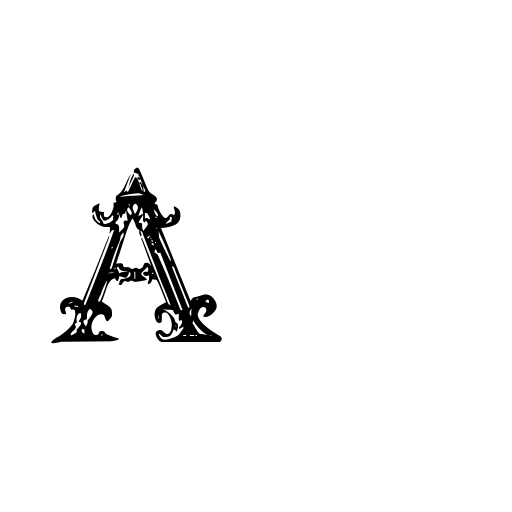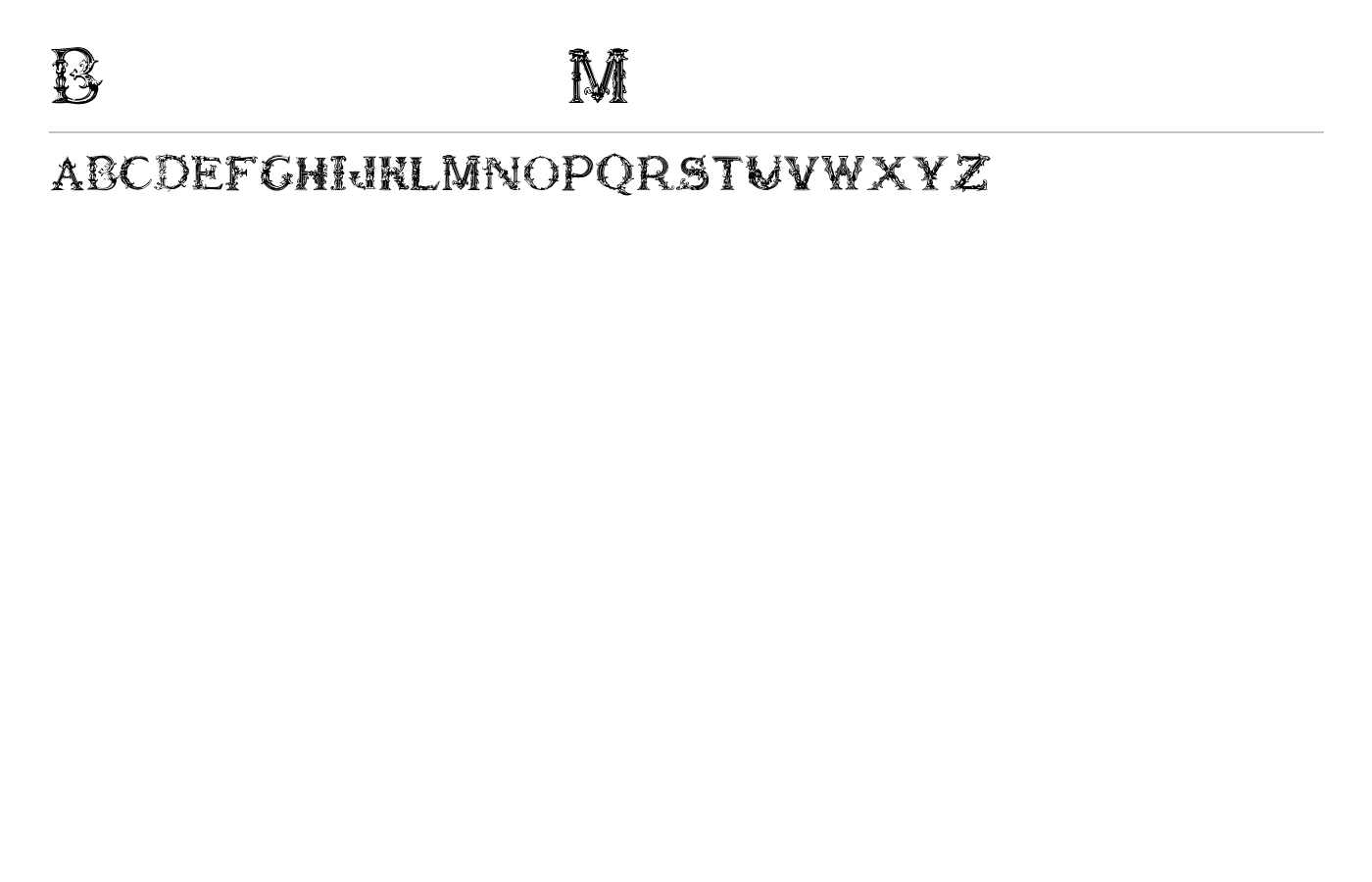
British Museum 1490 is a decorative serif font with a vintage flair, featuring intricate, ornate details reminiscent of historical calligraphy and old-world engravings. Its highly stylized letterforms with thick and thin stroke contrasts create a unique, antique character ideal for adding a classical, elegant touch to branding, logos, posters, and editorial designs that seek a historic or museum-quality aesthetic. This font works best in large display settings where its elaborate details can be fully appreciated.
British Museum 1490 Font
About British Museum 1490 Font